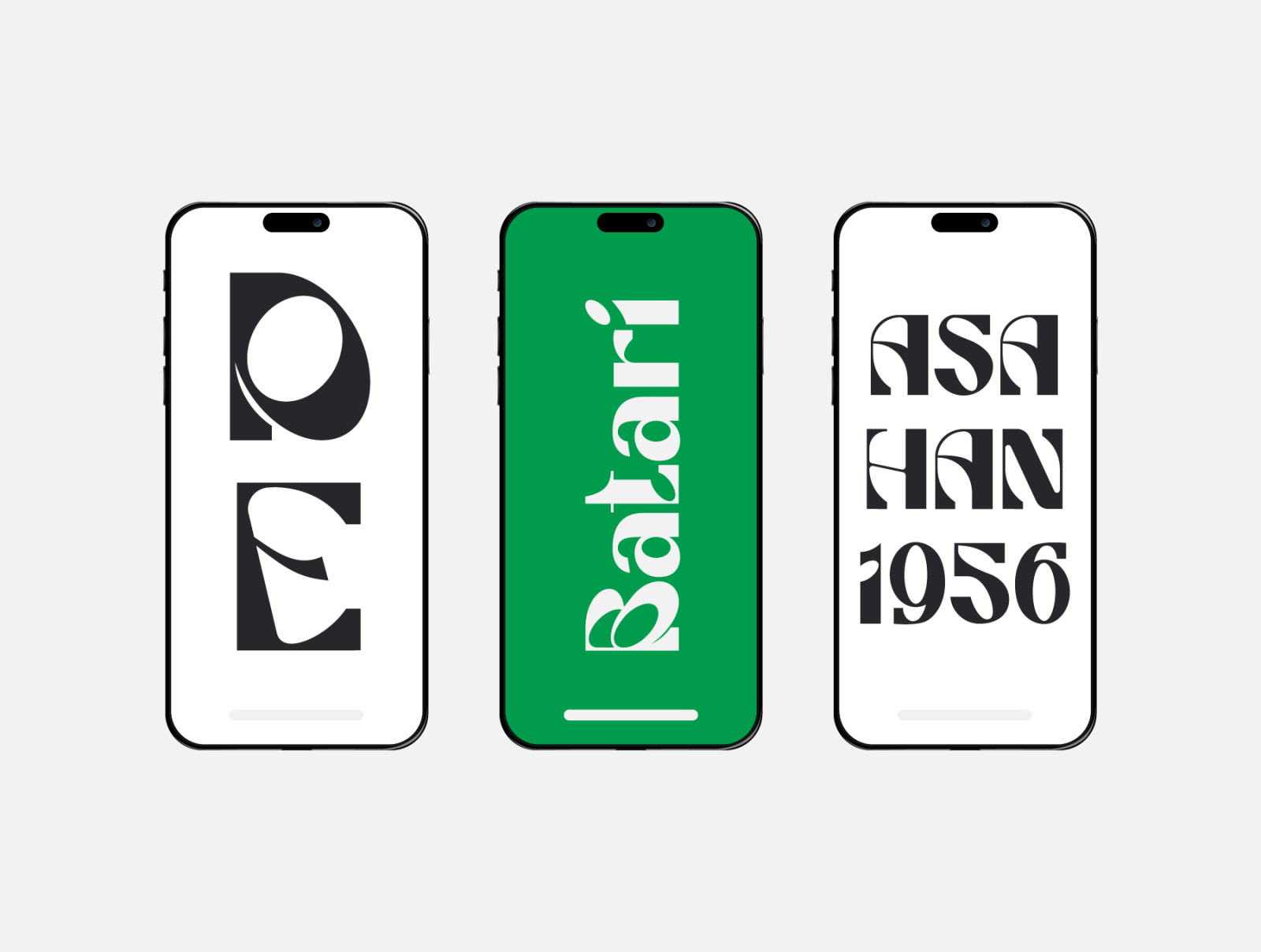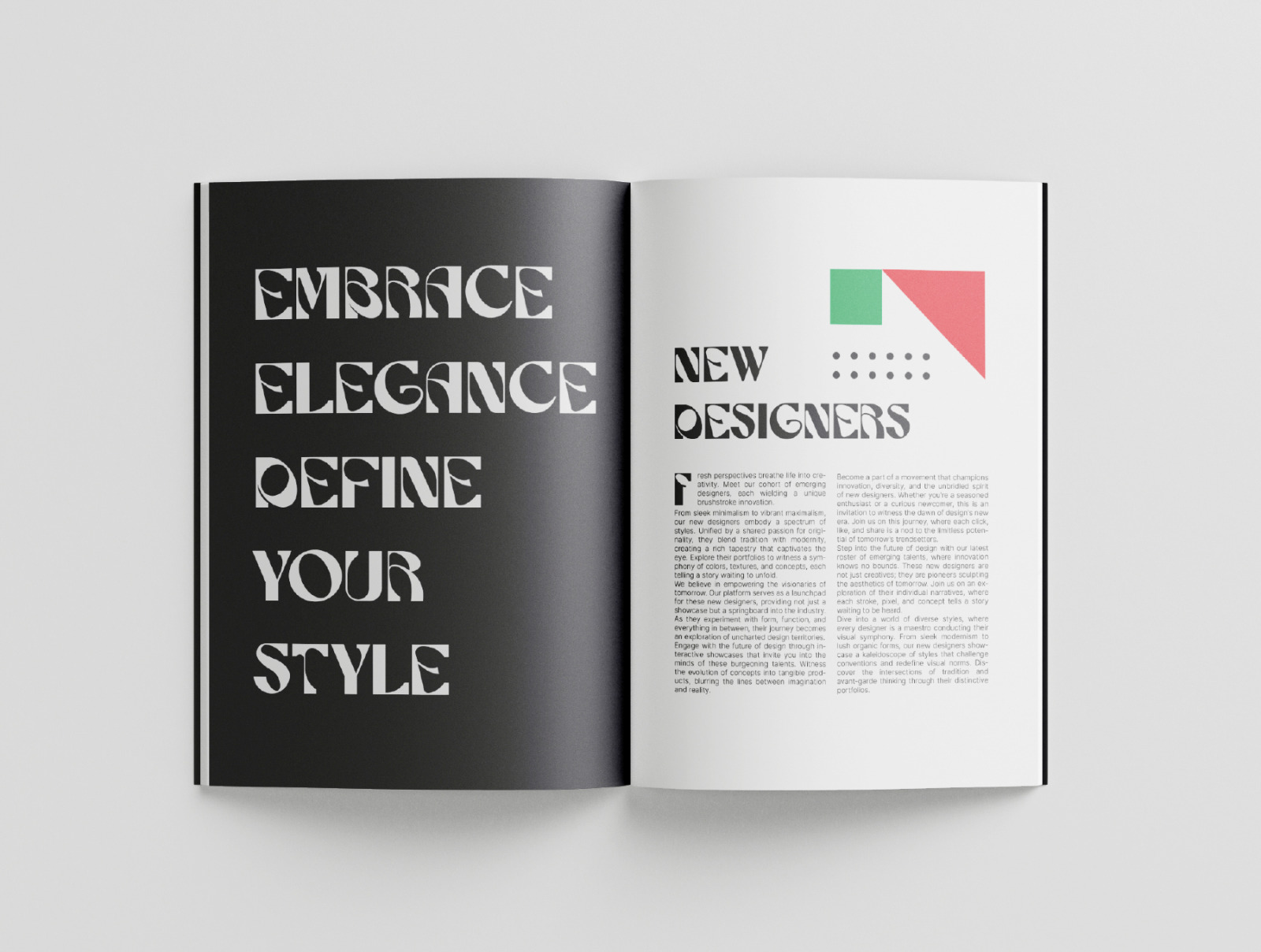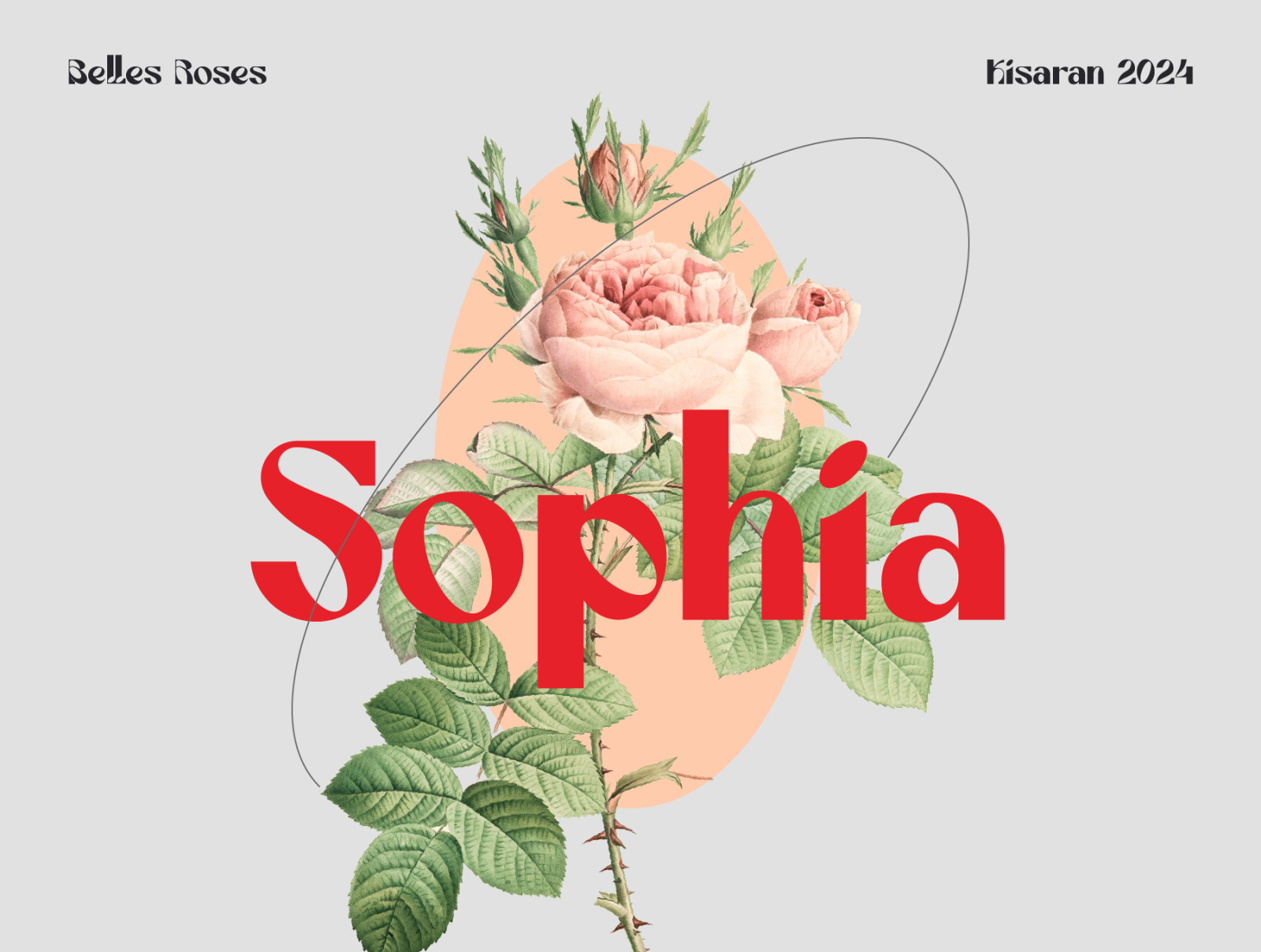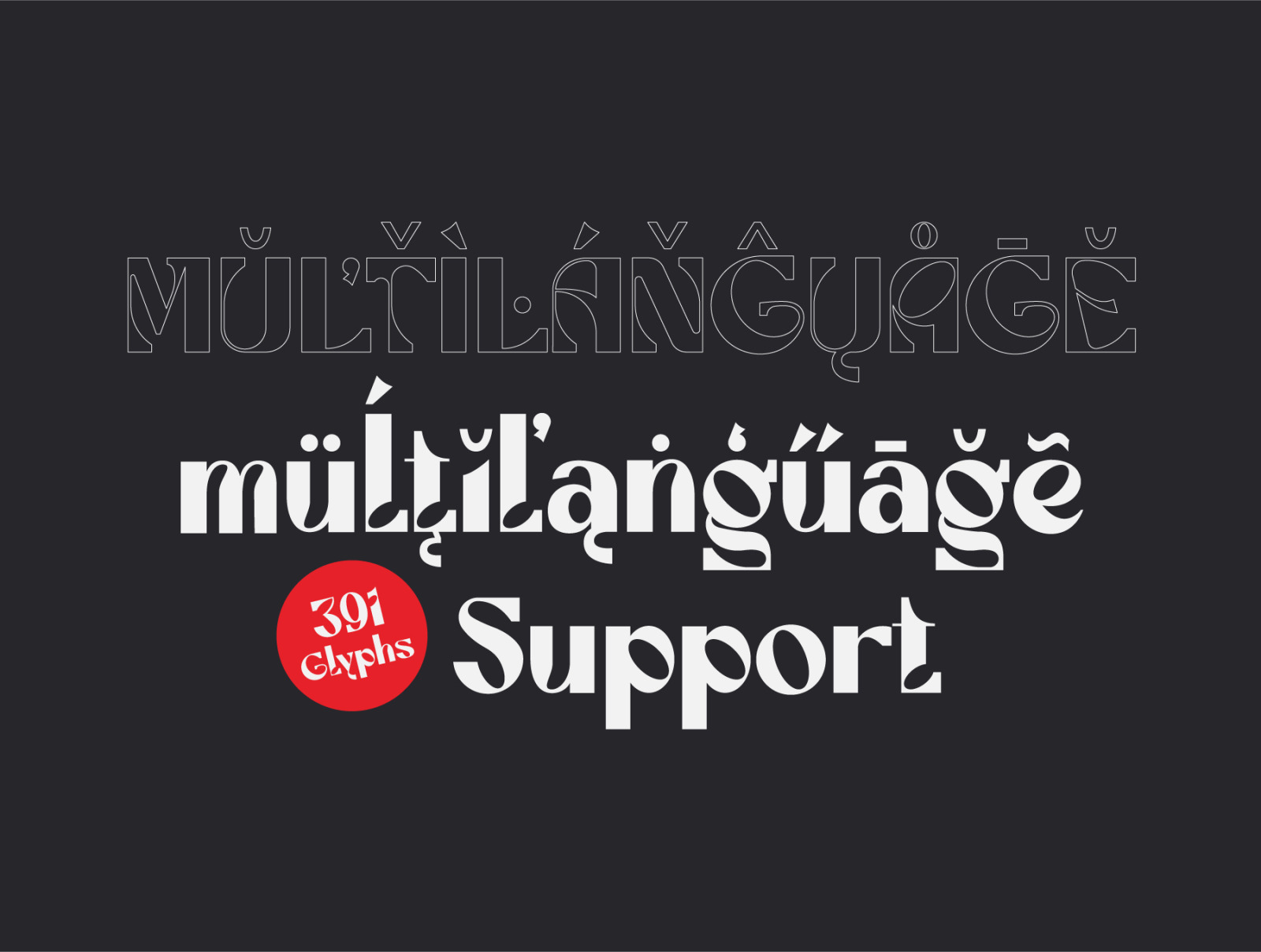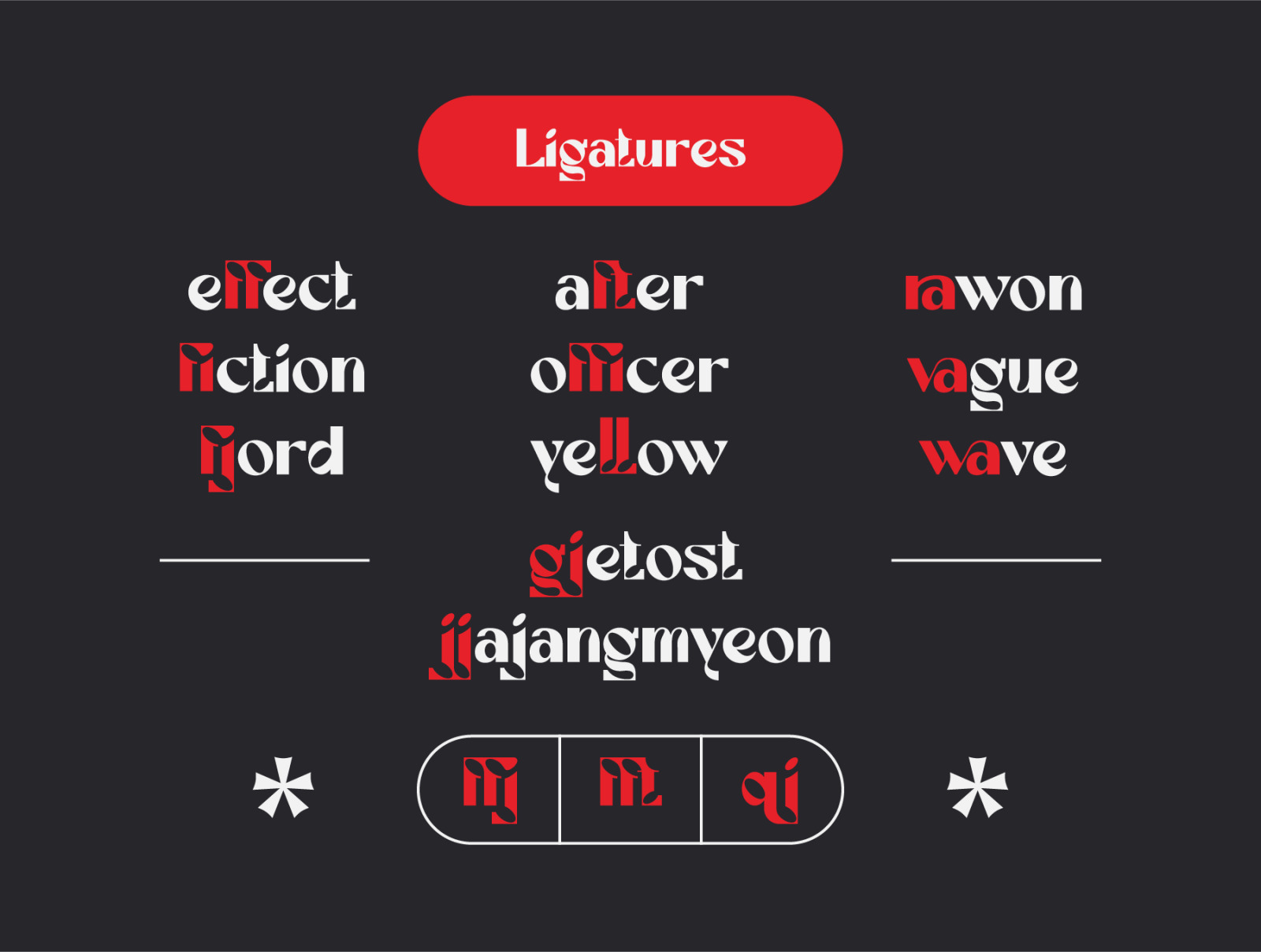
Kisaran Display Font
Introducing Kisaran, a versatile font perfect for branding, posters, and more. This old-style display font adds a touch of timeless elegance to your designs. With multilanguage support and alternate characters, Kisaran ensures flexibility and personalized charm for every project. Elevate your creativity effortlessly with this multipurpose typeface.
– Full set of uppercase and lowercase letters.
– Numerals & Punctuation.
– Alternate & Multilingual Support.
– Perfect for Headline and Poster.